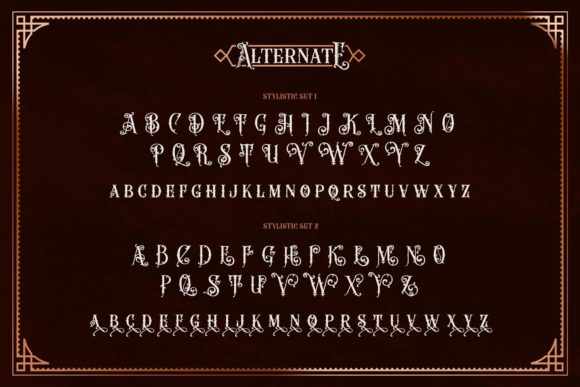
Hero Beam Font
Hero Beam is a victorian styled, bold and uniquely designed blackletter font. It is PUA encoded which means you can access all glyphs and swashes with ease!